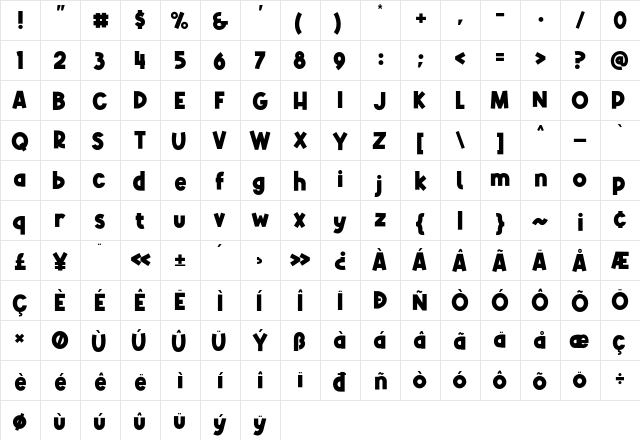
Alphakind Regular
| Foundry | Khurasan |
| Designer | Khurasan |
Design Context for Alphakind Typeface
Alphakind offers clean, dependable letterforms without strong stylistic allegiance, making it a practical choice for designers who need flexibility.